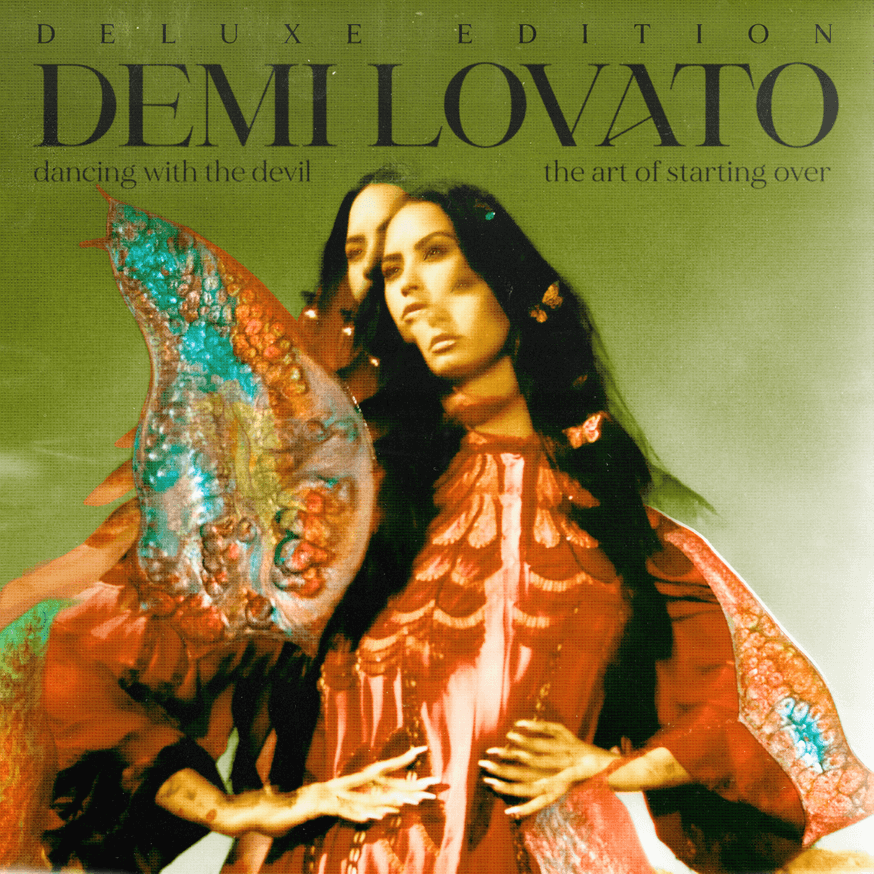
Dancing with the Devil Font
Fonts in UseDancing with the Devil … the Art of Starting Over is the seventh studio album by American singer Demi Lovato, released on April 2, 2021. The album explores Lovato's journey through addiction, trauma, and recovery, with raw and emotional lyrics accompanied by pop, rock, and R&B-infused production.
The artist uses the font Grande Solid by Ivan Rosenberg for their name, while the album title features a delicate serif font that resembles Mirage Medium from MadeType. Mirage is a modern and sophisticated serif font available for free download in five different weights in the Fonts Used Section.